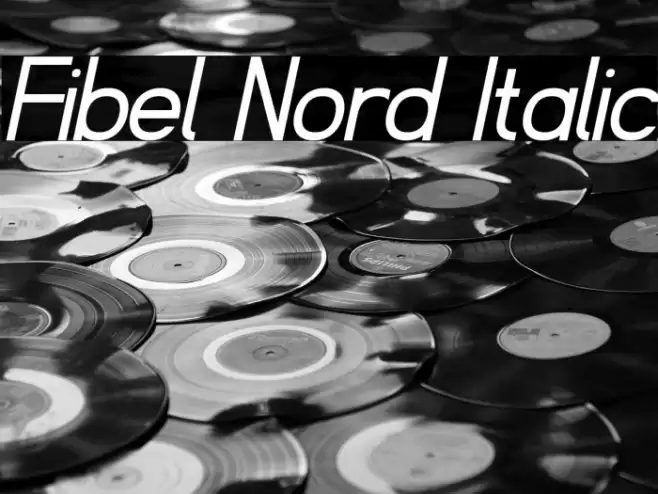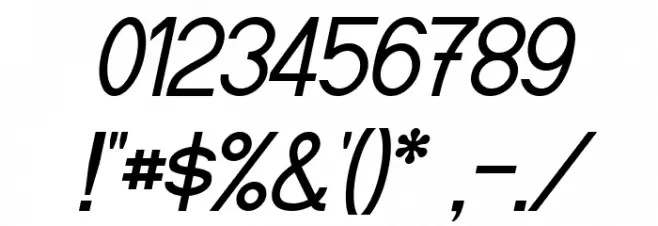
Fibel Nord Italic Font
Fibel Nord Italic Description
This font features a sleek, italicized design with a modern and streamlined appearance. The characters are slightly slanted, giving a sense of motion and elegance. The strokes are consistent in thickness, providing a uniform look across all characters. The uppercase and lowercase letters are well-proportioned, and the numerals are clear and easy to read. Special characters are included, maintaining the same stylistic approach. The overall design is clean and professional, making it suitable for various applications.
A modern, italicized font with a sleek and streamlined appearance from Uncategorized fonts.
- Proposed Projects: Ideal for branding, advertising, and editorial design where a modern and dynamic look is desired.